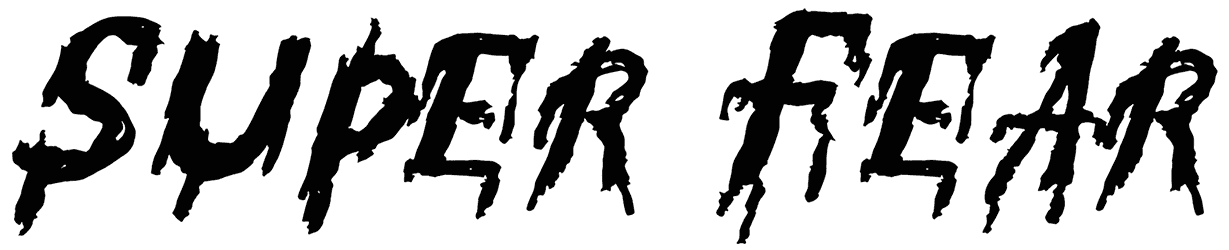
Super Fear Font
Super Fear has prominent decorations and inherent artistic talent that can be a cover for your mental ideas. This dripping font can create a profound effect that conveys fear with great intensity.
This horror font‘s flaws and shaky lines have managed to add more spice to its frightening feeling, and forget the lack of small letters. So if you’re looking for a severe and scary touch for your posters and ads, Super Fear can be the end of your search.